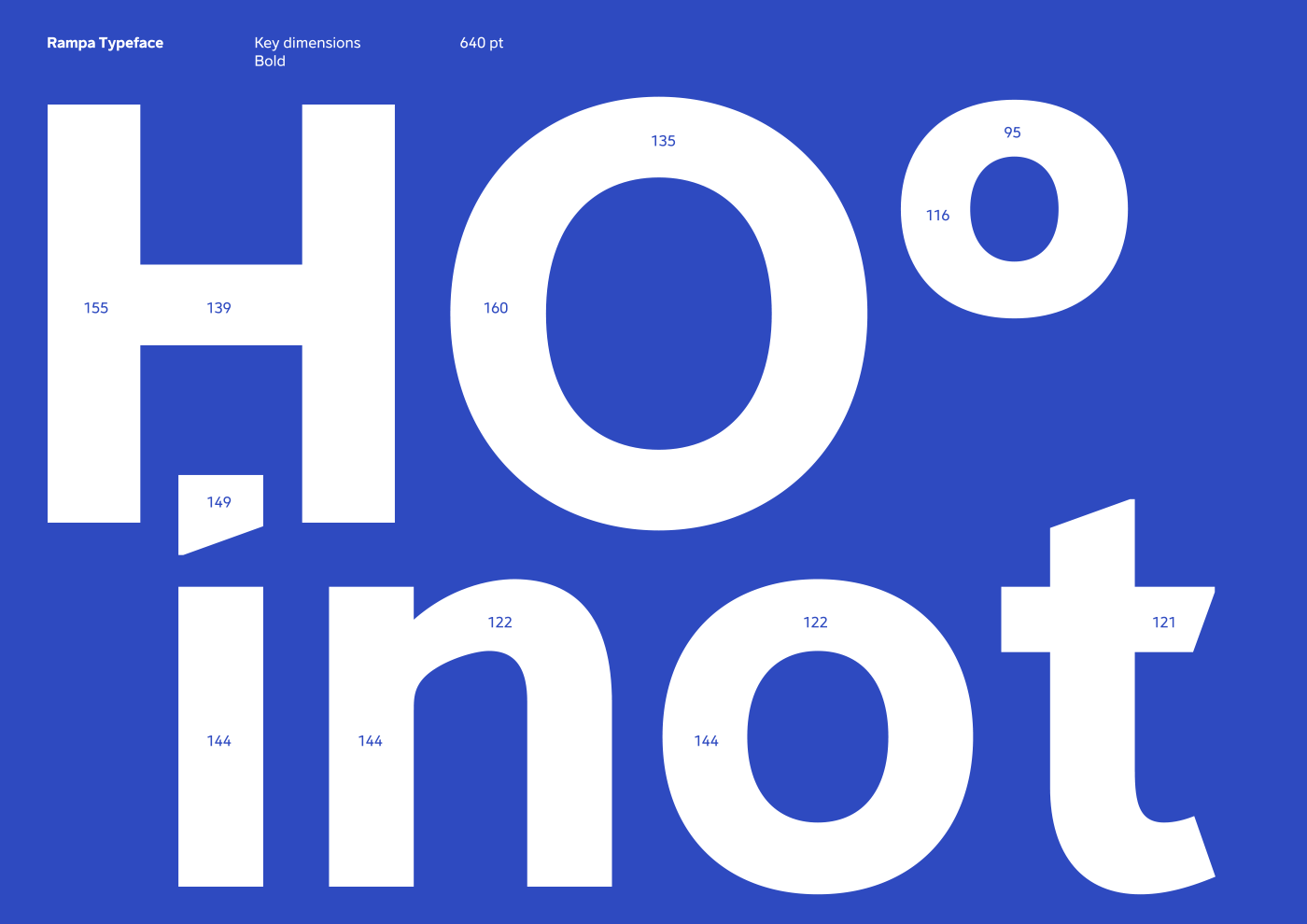
Pedro Matos shared a beautiful typography project on his Behance profile titled RAMPA. Built from scratch, for v10. Rampa is a bespoke typeface developed for Primavera BSS, born with the release of Primavera v10. Neither a grotesque nor a humanist font, Rampa is a contemporary yet friendly looking sans serif typeface—with moderate contrast and modern proportions—that plays on both sides of these styles. The key concept behind v10 branding and communication is a 20 degree acute angle, symbolizing growth and evolution.
Rampa was crafted to include this 20º angle throughout almost every glyph geometry, present sometimes on a shoulder, on an apex, a leg or even a terminal, to bring out a higher sense of relationship between all parts.